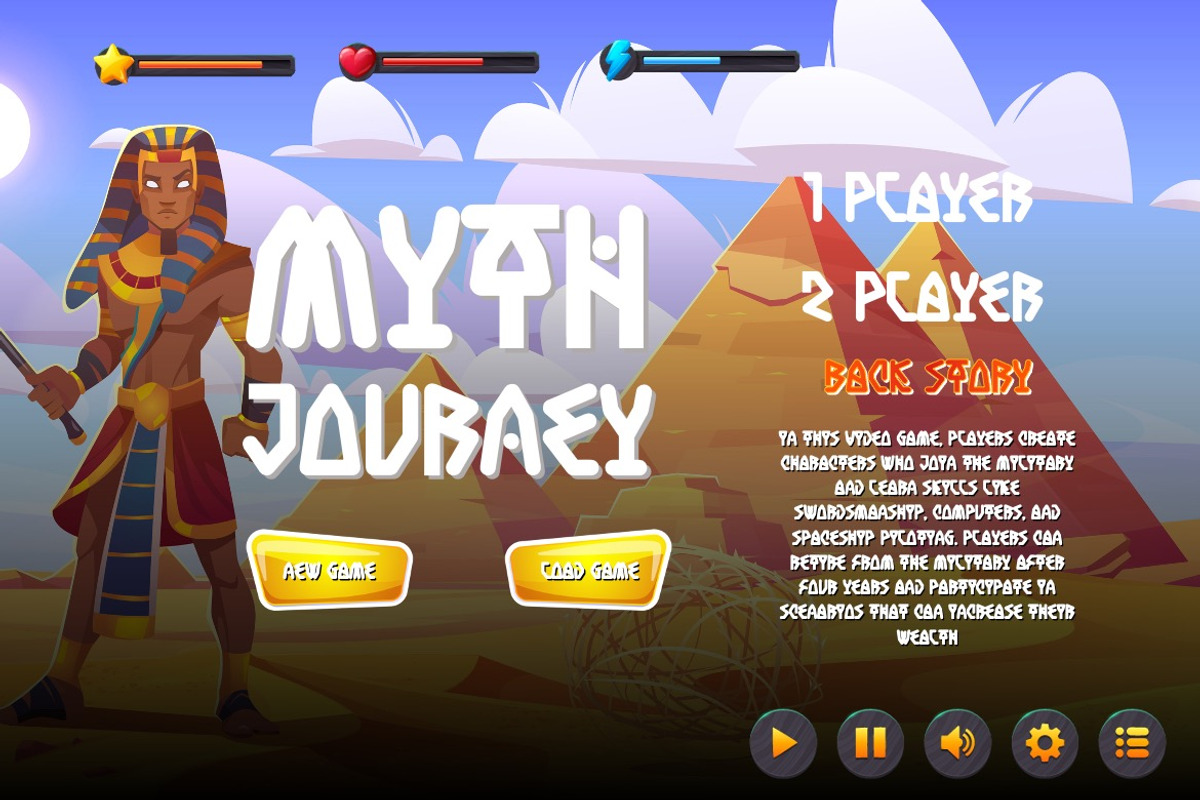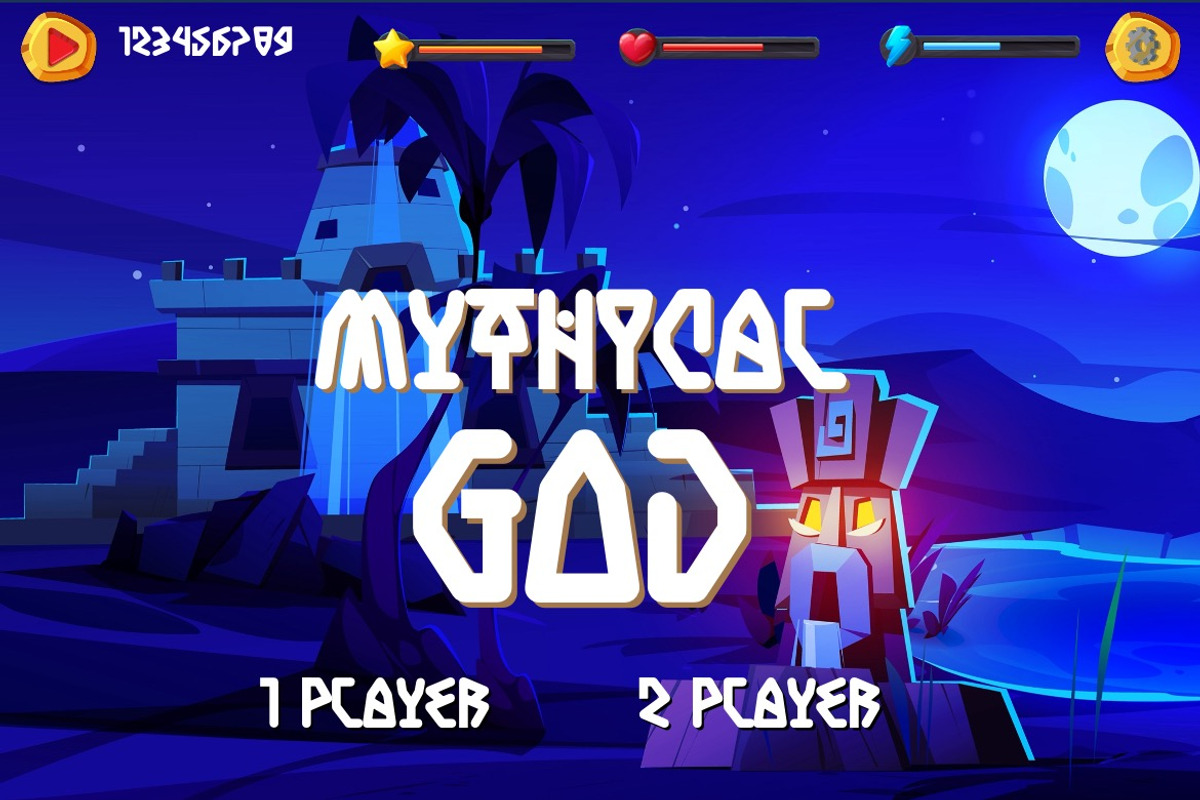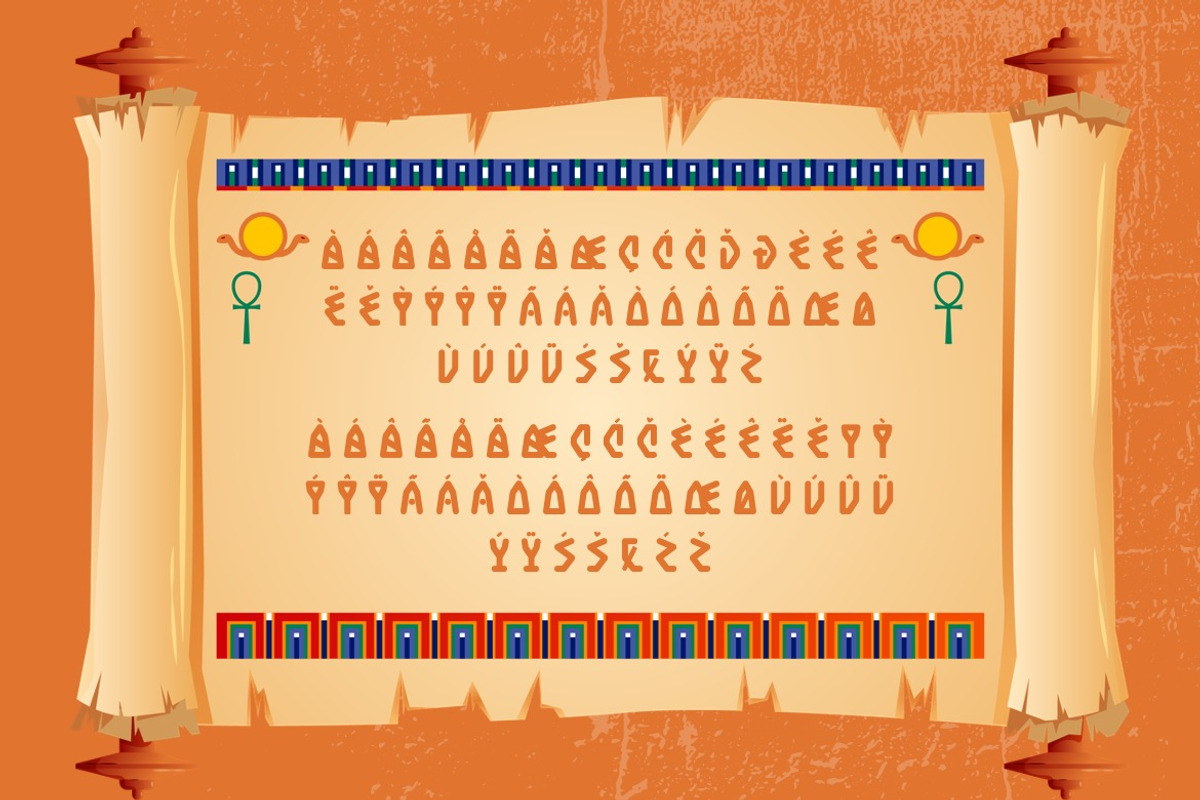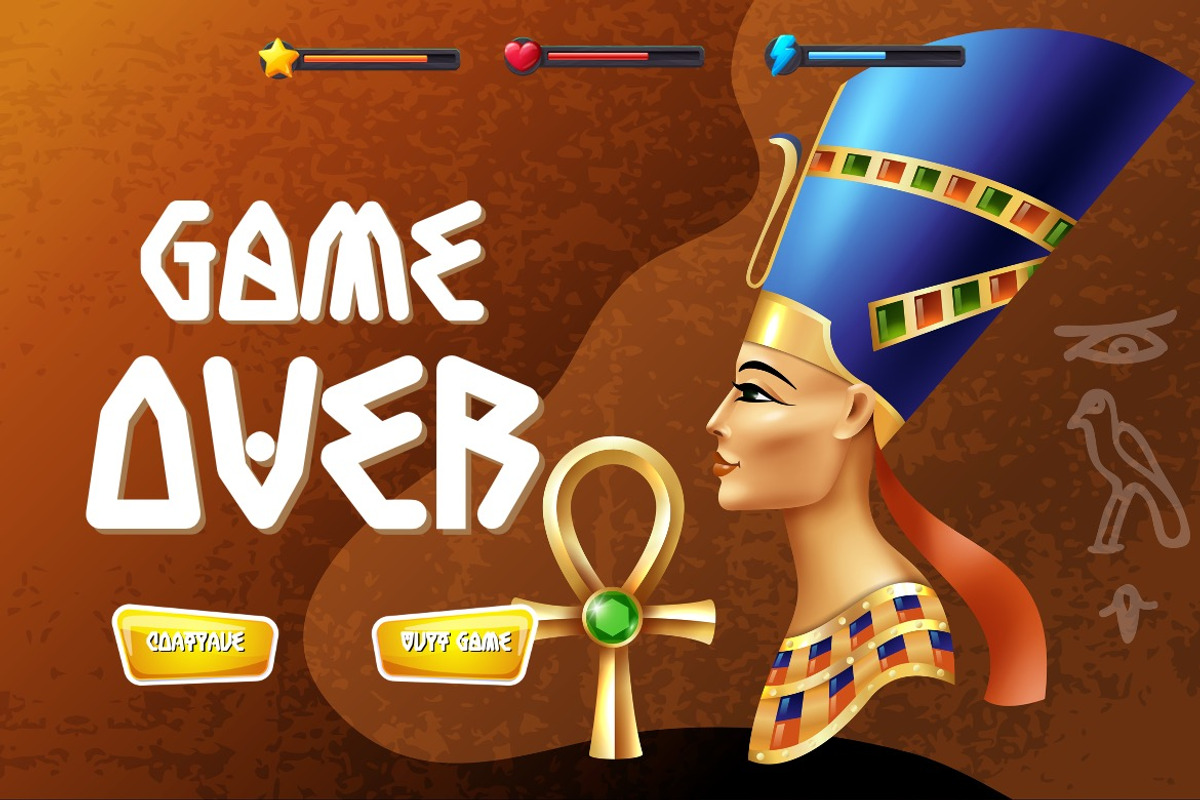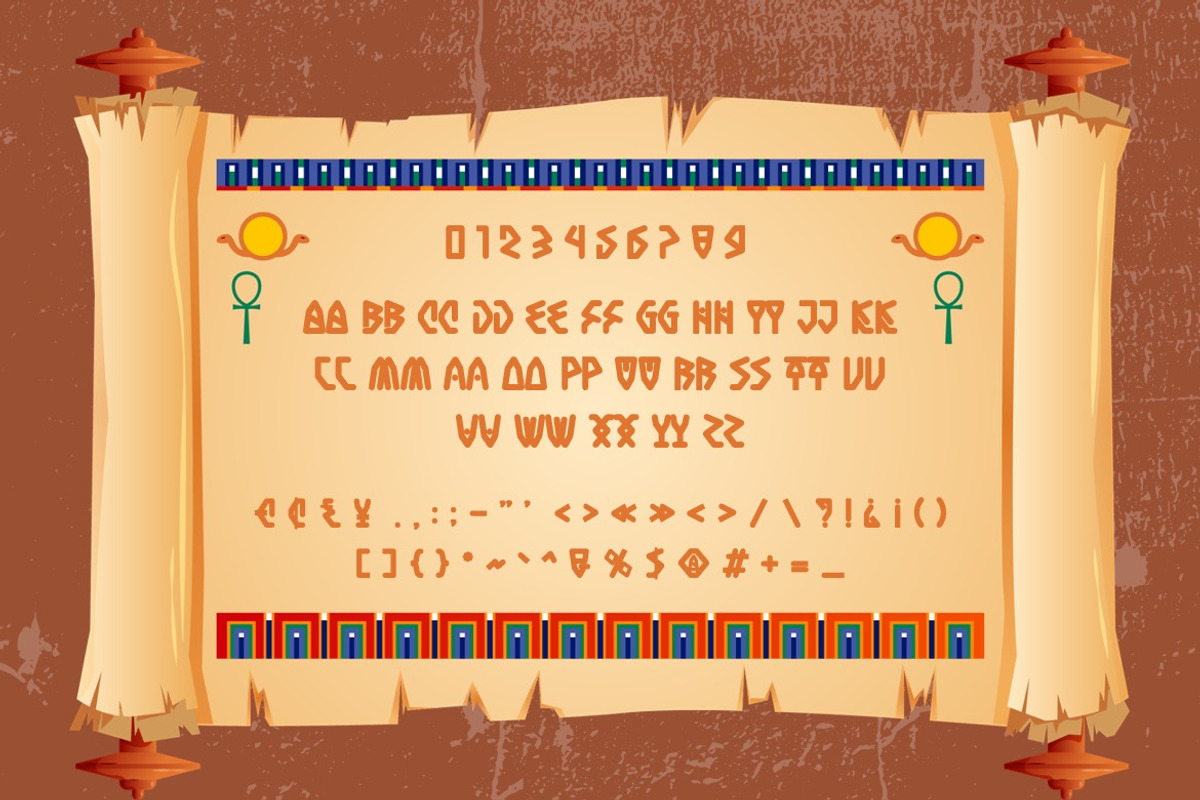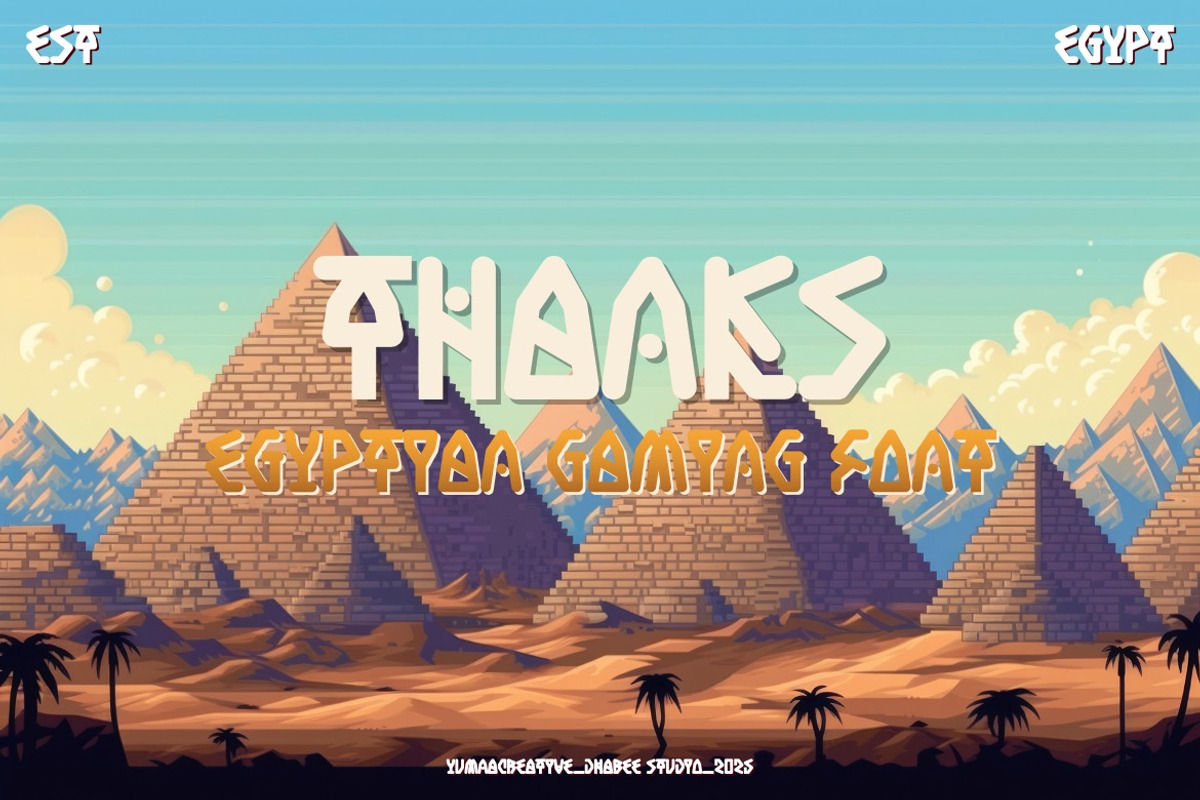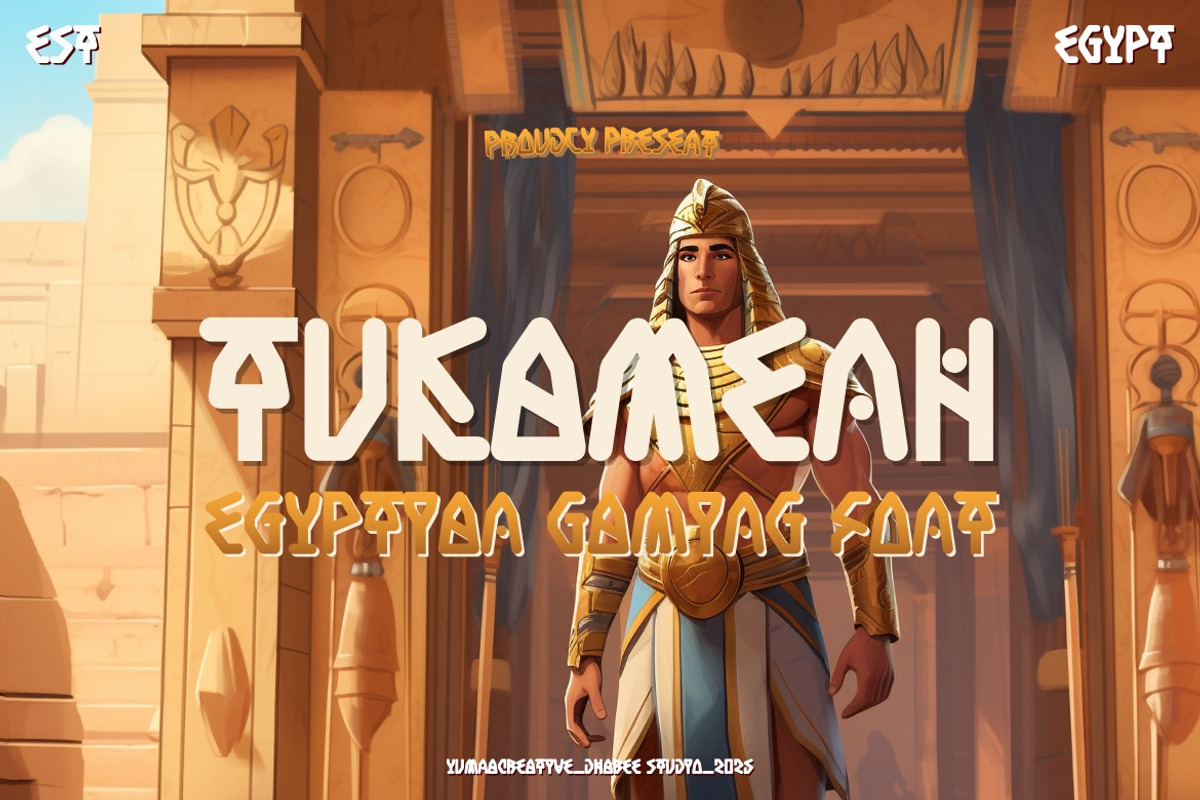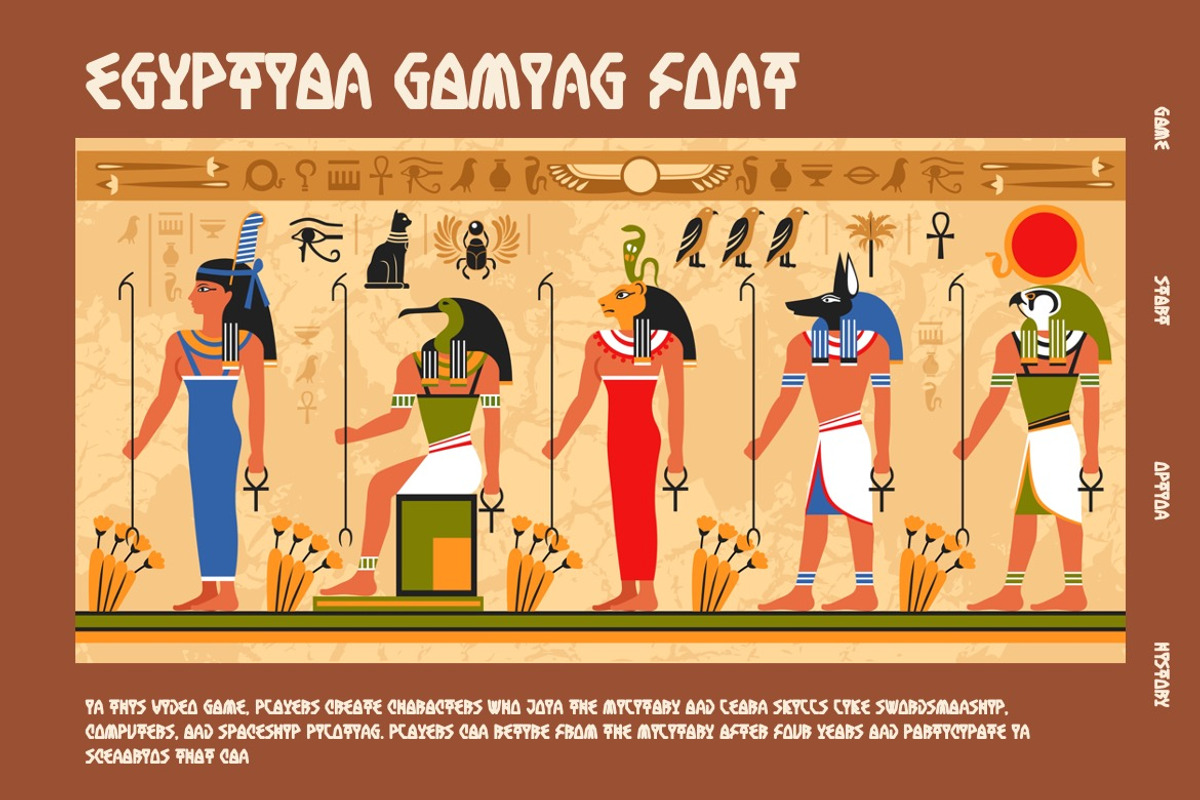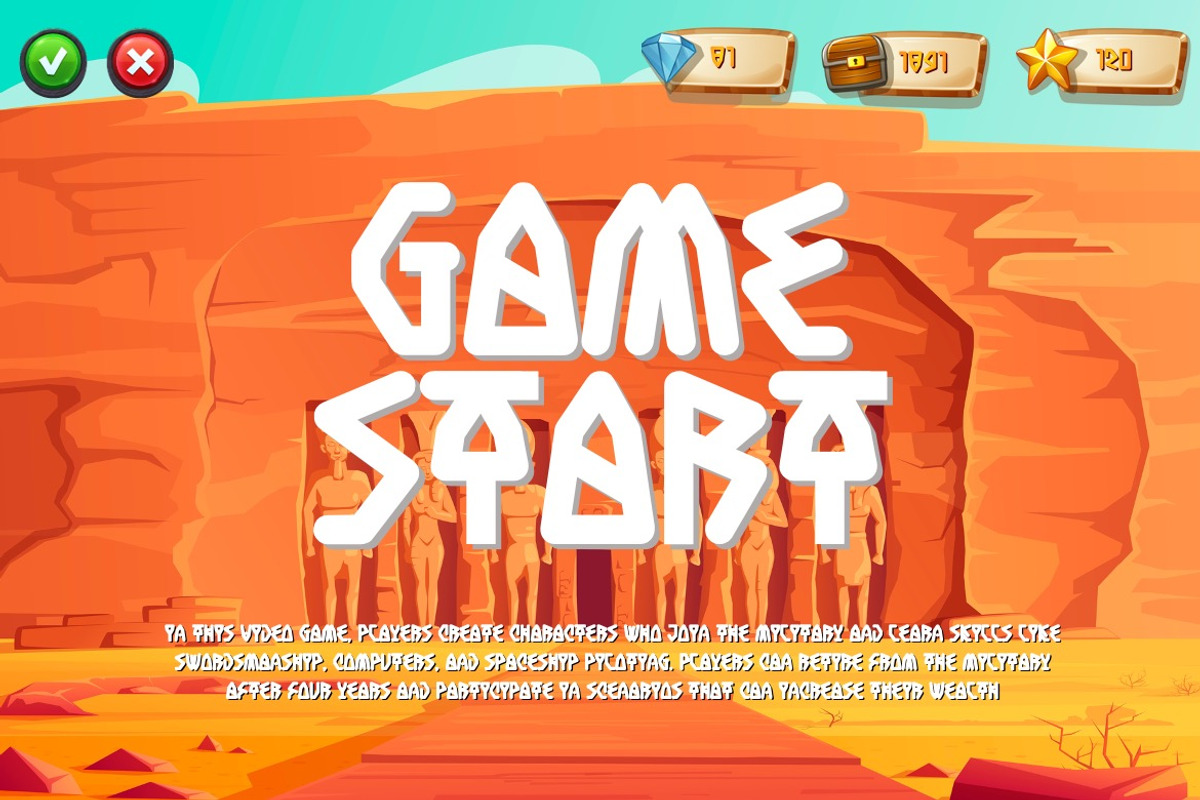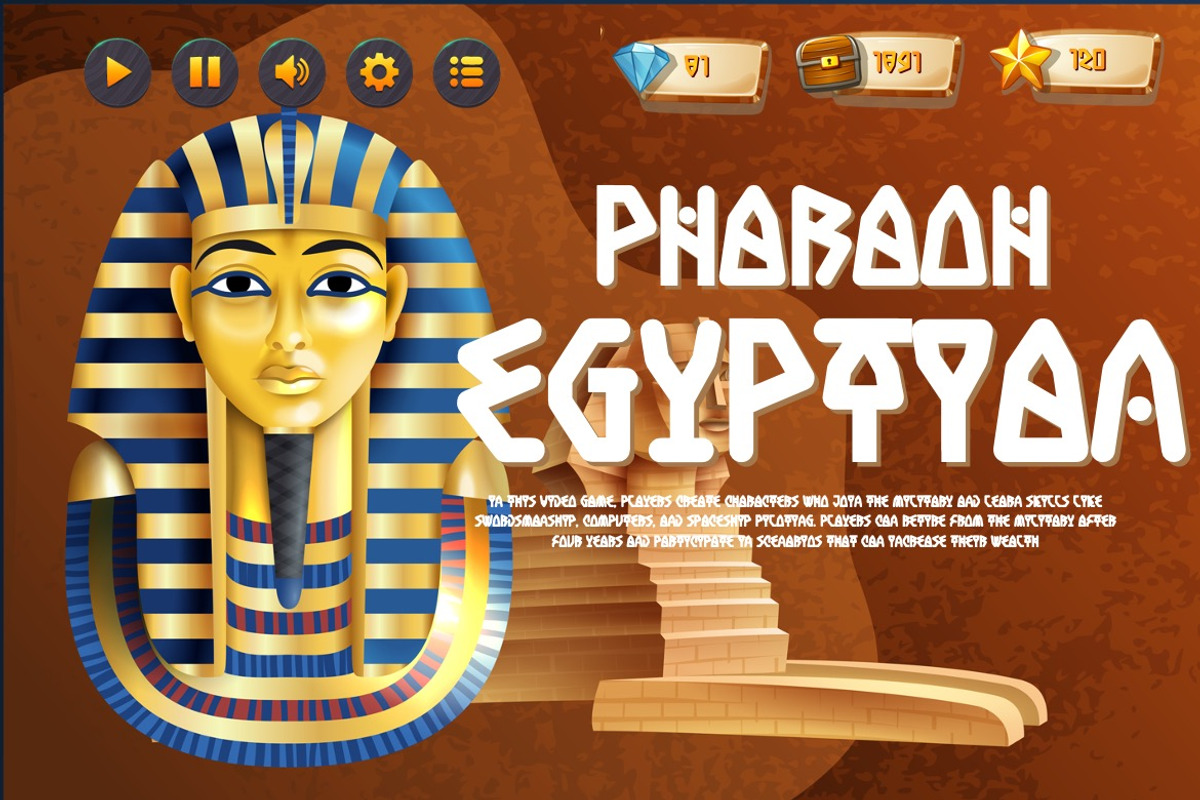
Tukamenh - Egypt Gaming Font
Introducing Tukamenh - Egypt Gaming Font
Tukamenh - Egypt Gaming Font isn’t just a font it’s a portal to a world of ancient wonder. It’s your key to crafting designs that transport viewers to the heart of Egypt’s storied past, where the sands whisper secrets and hieroglyphs tell tales. Elevate your projects, captivate your audience, and embrace Tukamenh - Egypt Gaming Font that’s rewriting the rules of design history.